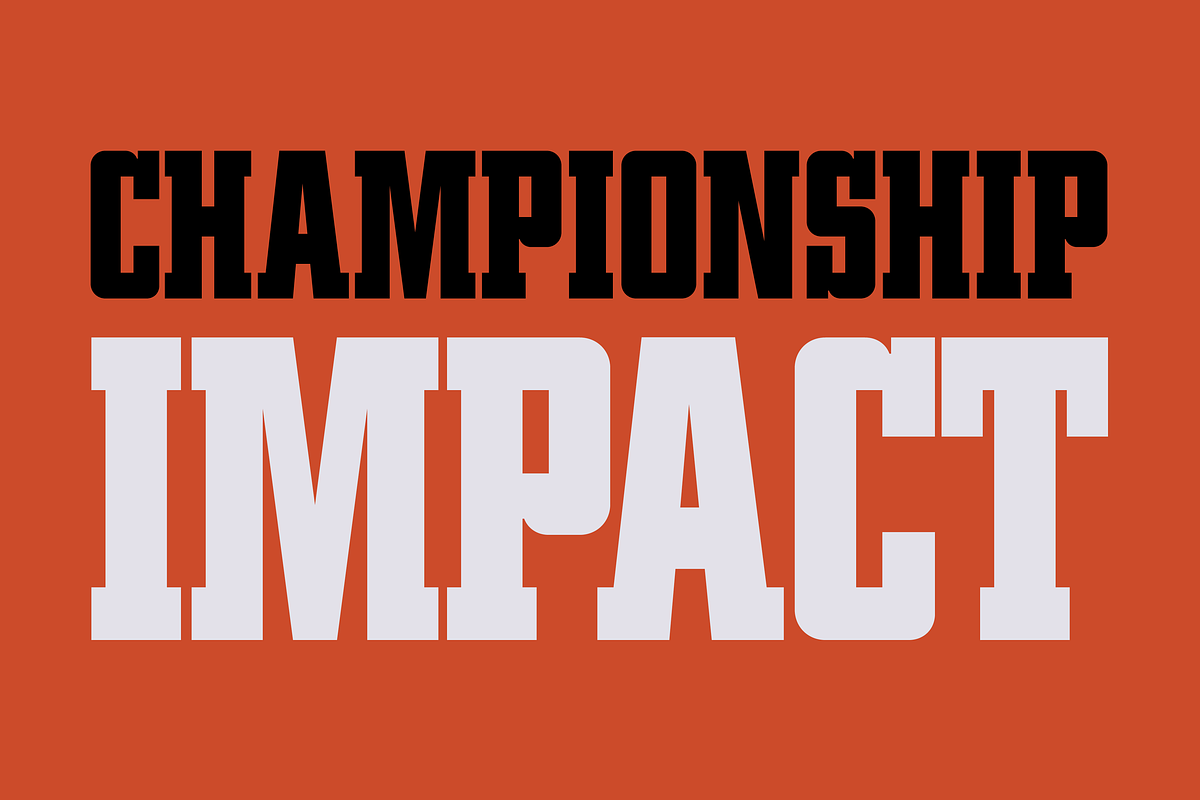
Atletico Slab Serif (3 Fonts) Free Download is a strong and stylish typeface family featuring three versatile weights. With its bold slab serifs, clean geometry, and sporty elegance, Atletico is perfect for posters, editorial layouts, athletic branding, headlines, and modern retro design.
Each font in the family is crafted to maintain readability while delivering a commanding presence—ideal for both digital and print formats. The set includes multilingual support and functions seamlessly on both Mac and Windows systems, making it a reliable choice for any creative toolkit.